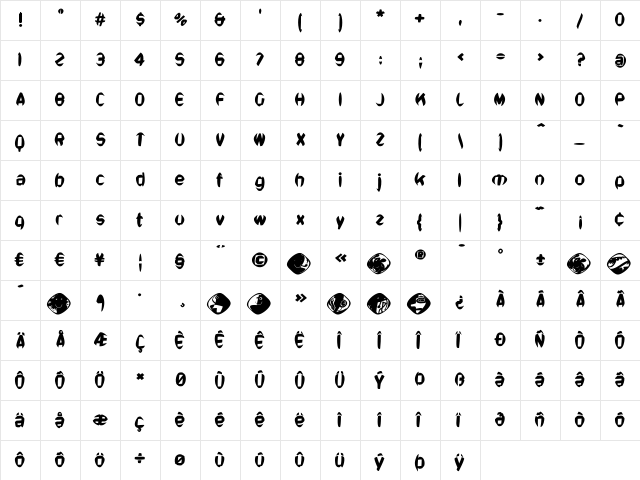
BonSans Regular
Design Context for BonSans Typeface
BonSans is a composed and adaptable typeface that performs quietly and consistently across a wide range of design contexts.